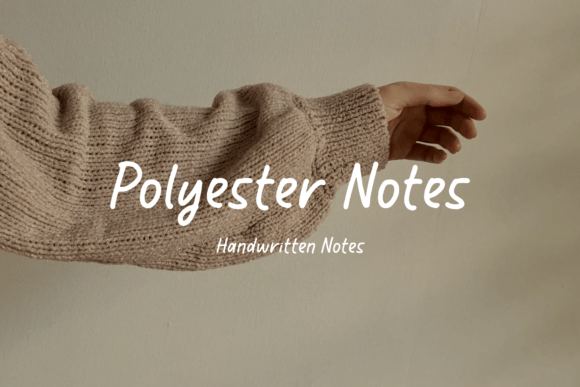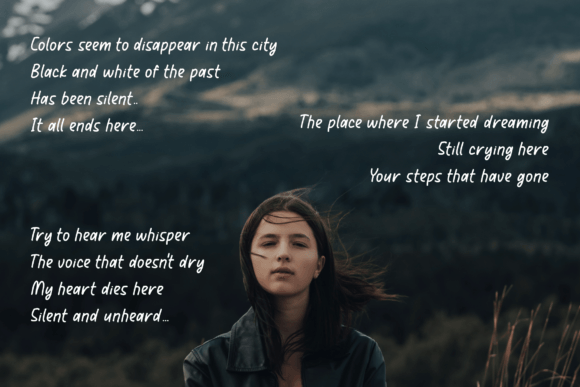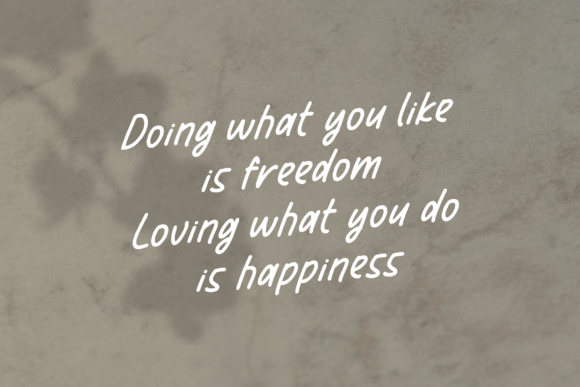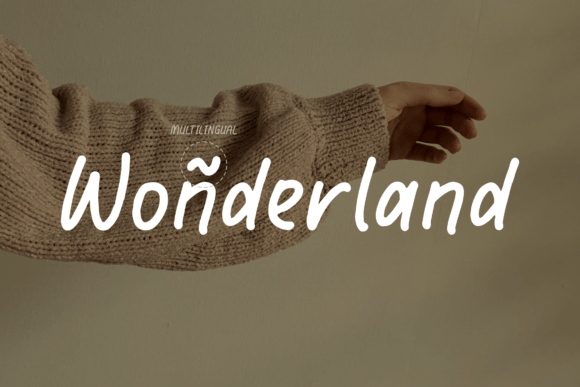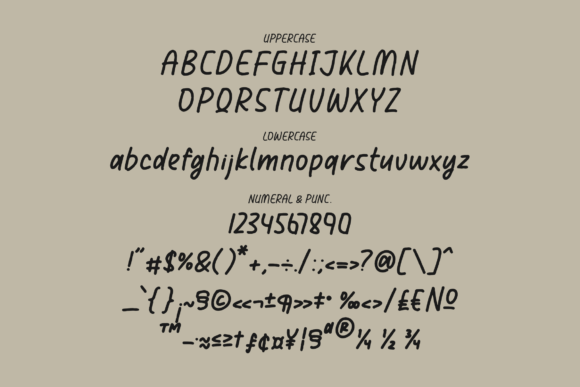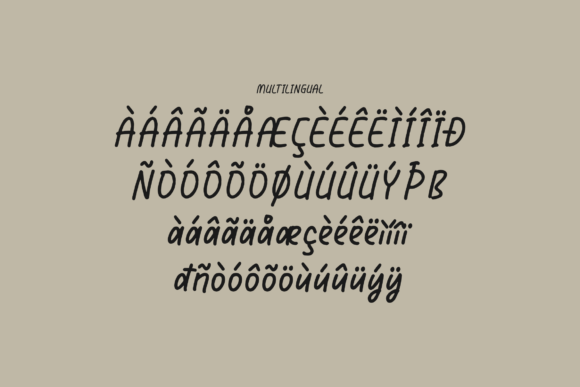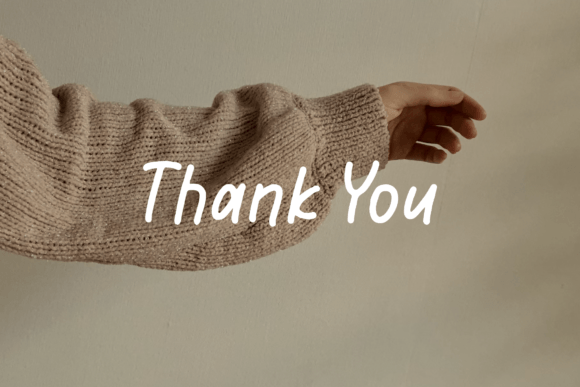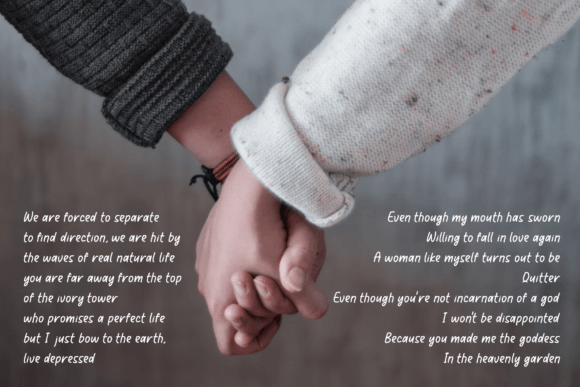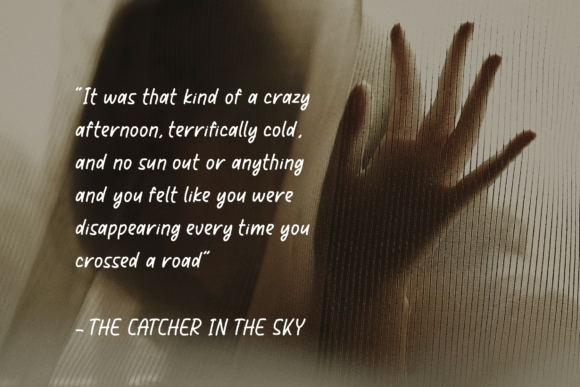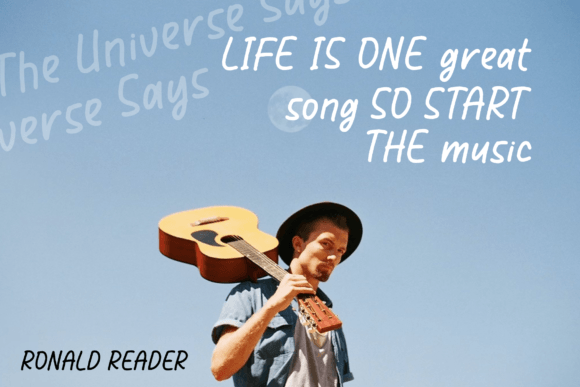
Polyester Notes Font
About Polyester Notes Font
**”Polyester Notes”** is a versatile handwritten font that adds a touch of elegance and creativity to a wide range of design projects. This font’s script style makes it suitable for various creative applications, making it a valuable choice for logos, branding, homeware designs, product packaging, and much more.
The script design of **”Polyester Notes”** gives it a fluid and stylish appearance, making it a standout choice for a variety of design purposes. Whether you’re working on branding, product labels, posters, apparel, or any other creative project, this font adds a sense of script elegance and creativity to your designs.
In branding projects, **”Polyester Notes”** creates a distinct and memorable visual identity. The font’s script style can be used to craft unique and eye-catching logos that capture the essence of your brand.
Product packaging benefits from the stylish and creative aesthetics of **”Polyester Notes.”** It can be used to design labels, tags, and packaging typography that stand out on the shelves and appeal to customers.
Posters, quotes, and apparel designs come to life with the elegant and fluid script of **”Polyester Notes.”** This font adds a dynamic and expressive quality to your typographic compositions, making them more impactful and visually engaging.
The versatility of **”Polyester Notes”** extends to various print and digital applications, including name cards, invitation cards, greeting cards, labels, photography watermarks, and special events materials.
In summary, **”Polyester Notes”** is a versatile handwritten font that brings elegance and creativity to your design projects. Its script style makes it suitable for logos, branding, packaging, posters, apparel, and a wide range of other creative applications where a beautiful script taste is desired.